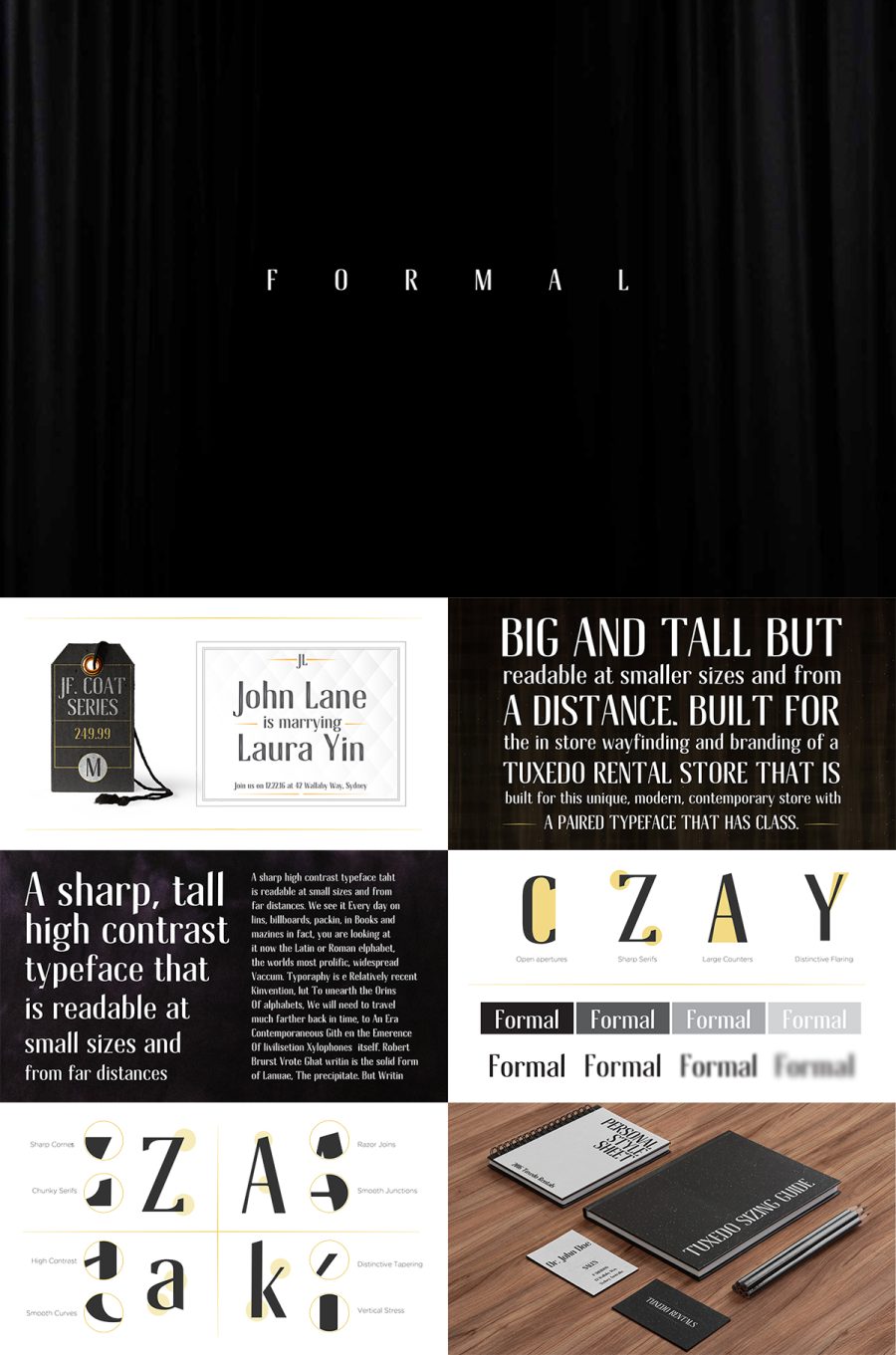
Formal Inline Free Typeface is a typeface that is coming for the in-store signage and branding of a tuxedo store. A fine-looking typeface that is tall and slender yet versatile; Possessing class and wealth. Big and tall but readable at smaller size and from a distance. This font is great for unique, contemporary store branding and logo.
Formal Inline Free Typeface
Formal Inline Free Typeface is a typeface that is coming for the in-store signage and branding of a tuxedo store. A fine-looking typeface that is tall and slender yet versatile; Possessing class and wealth. Big and tall but readable at smaller size and from a distance. This font is great for unique, contemporary store branding and logo.